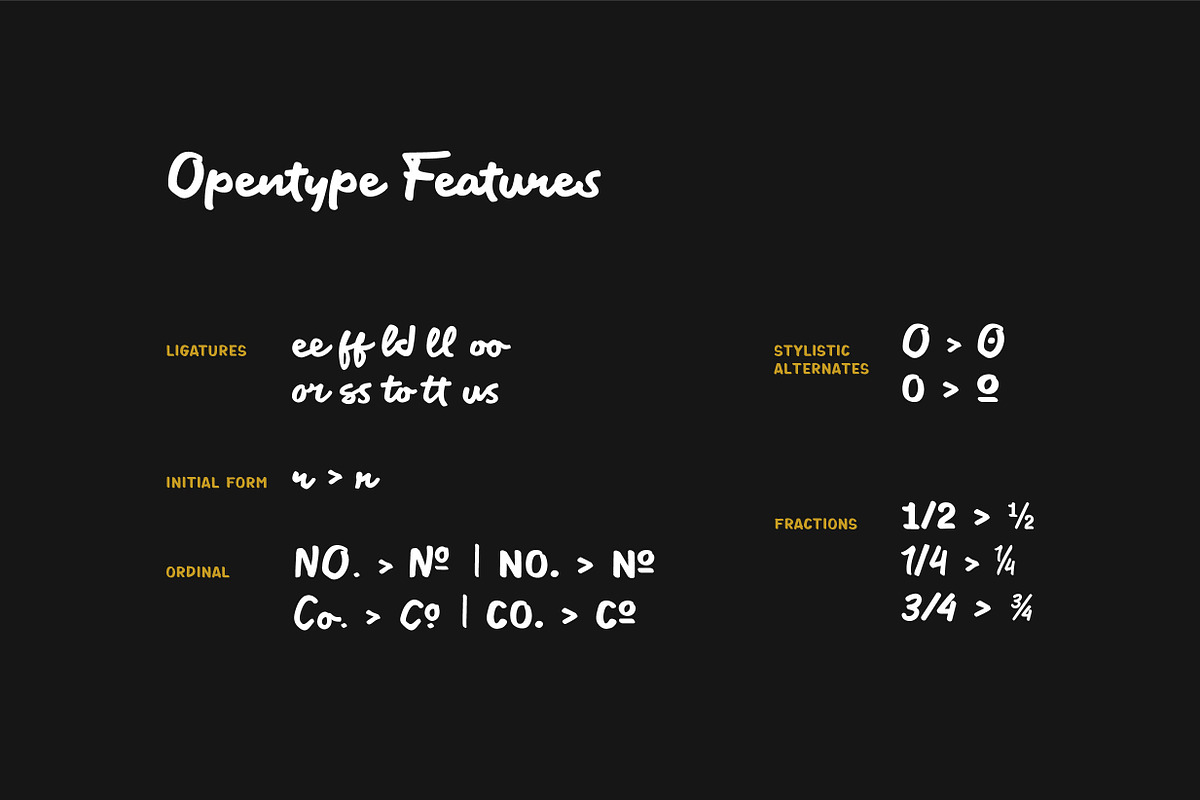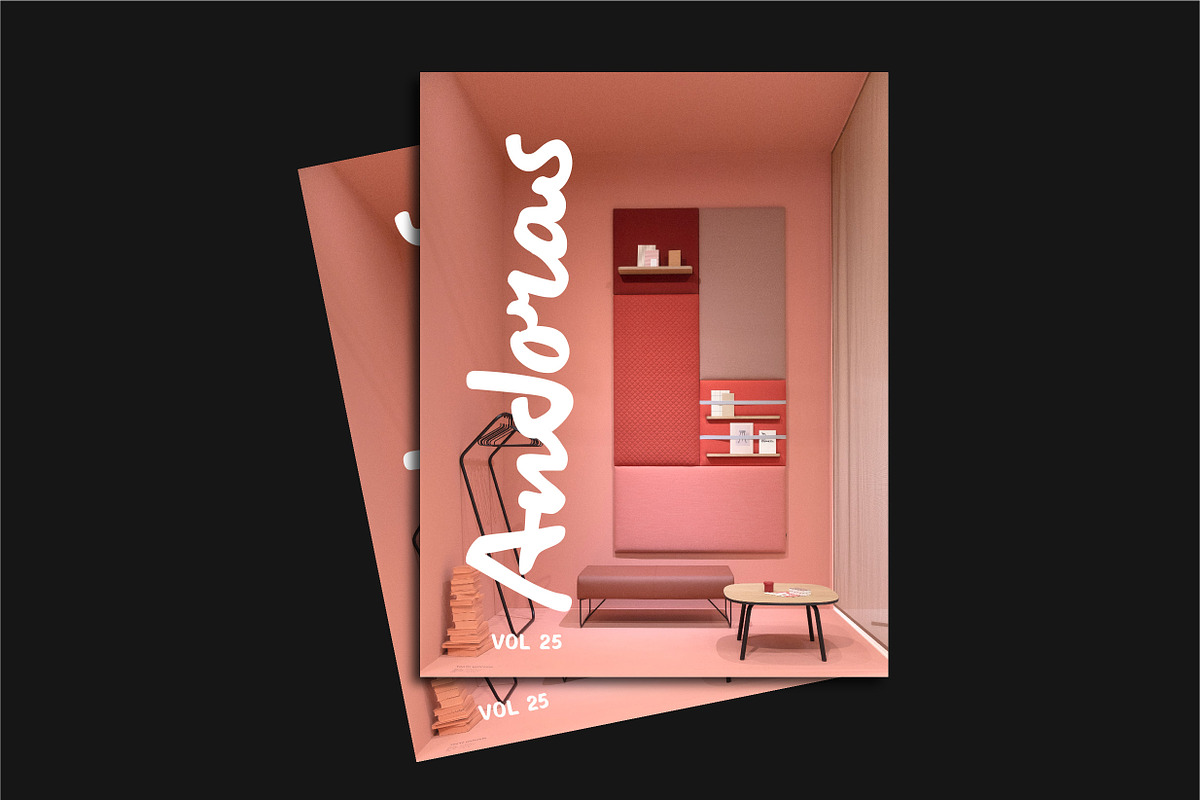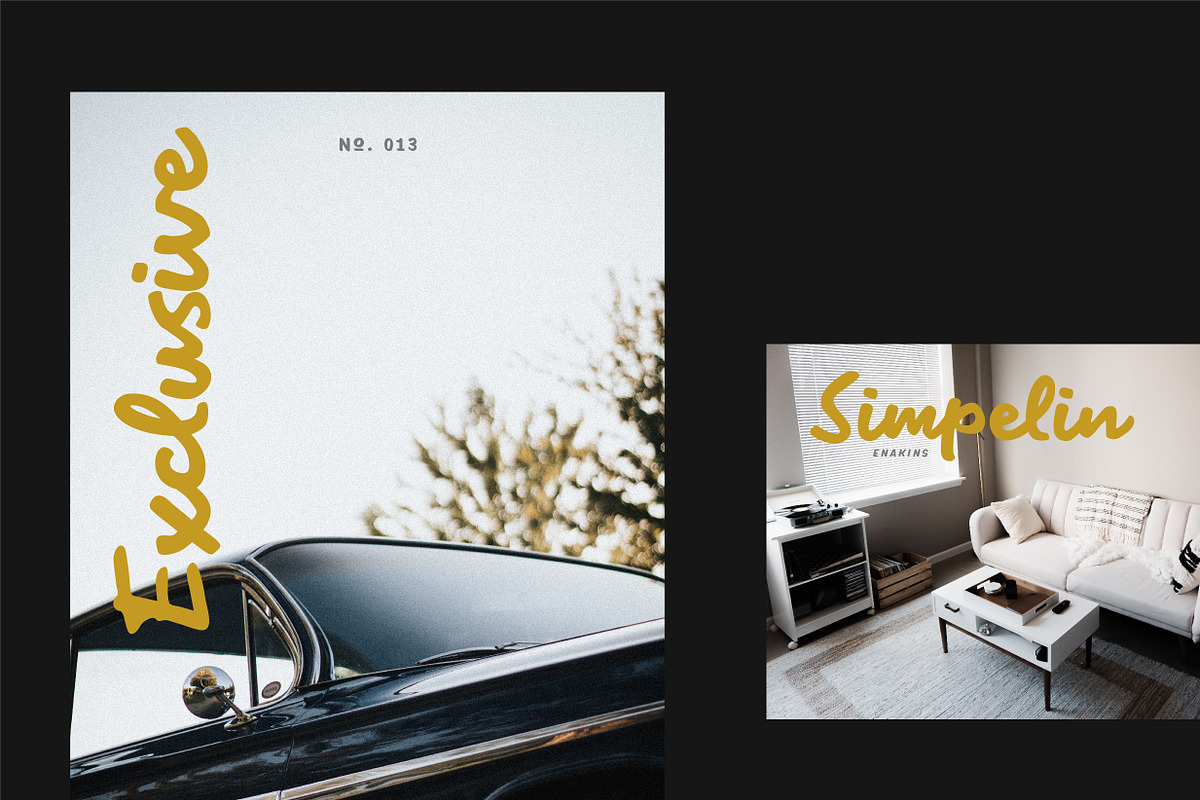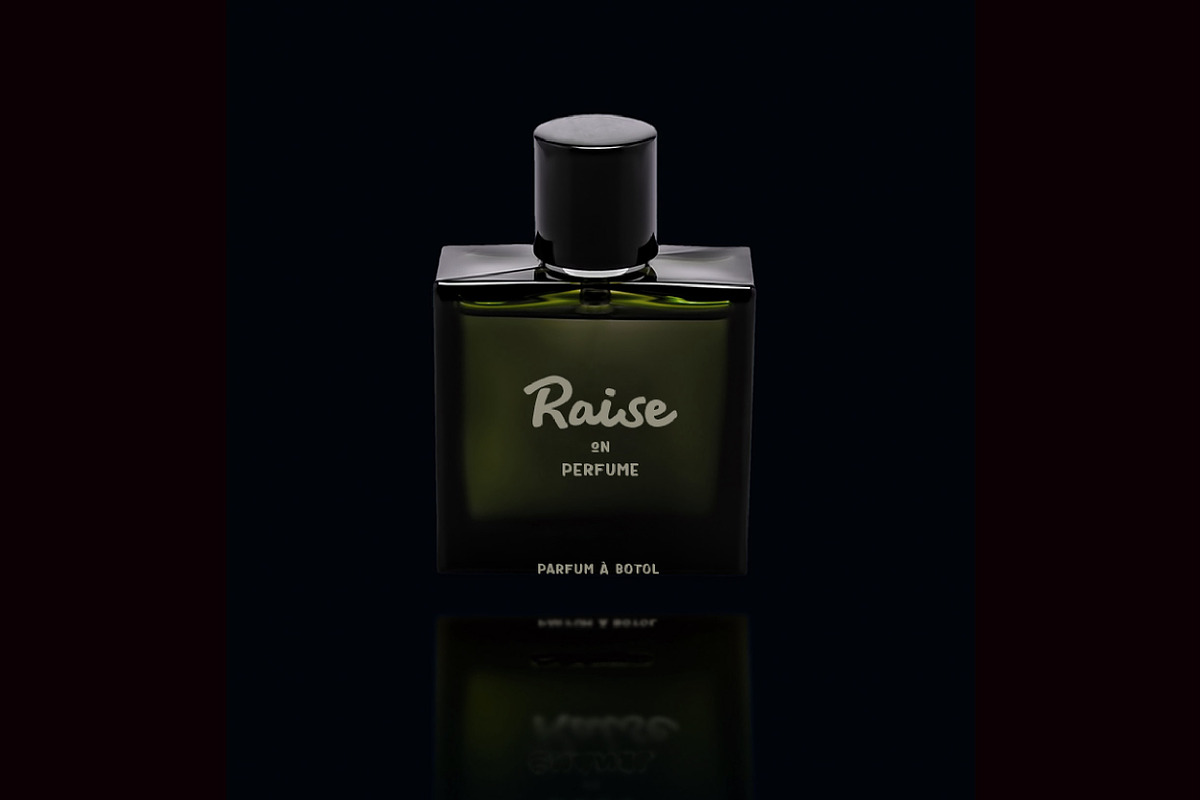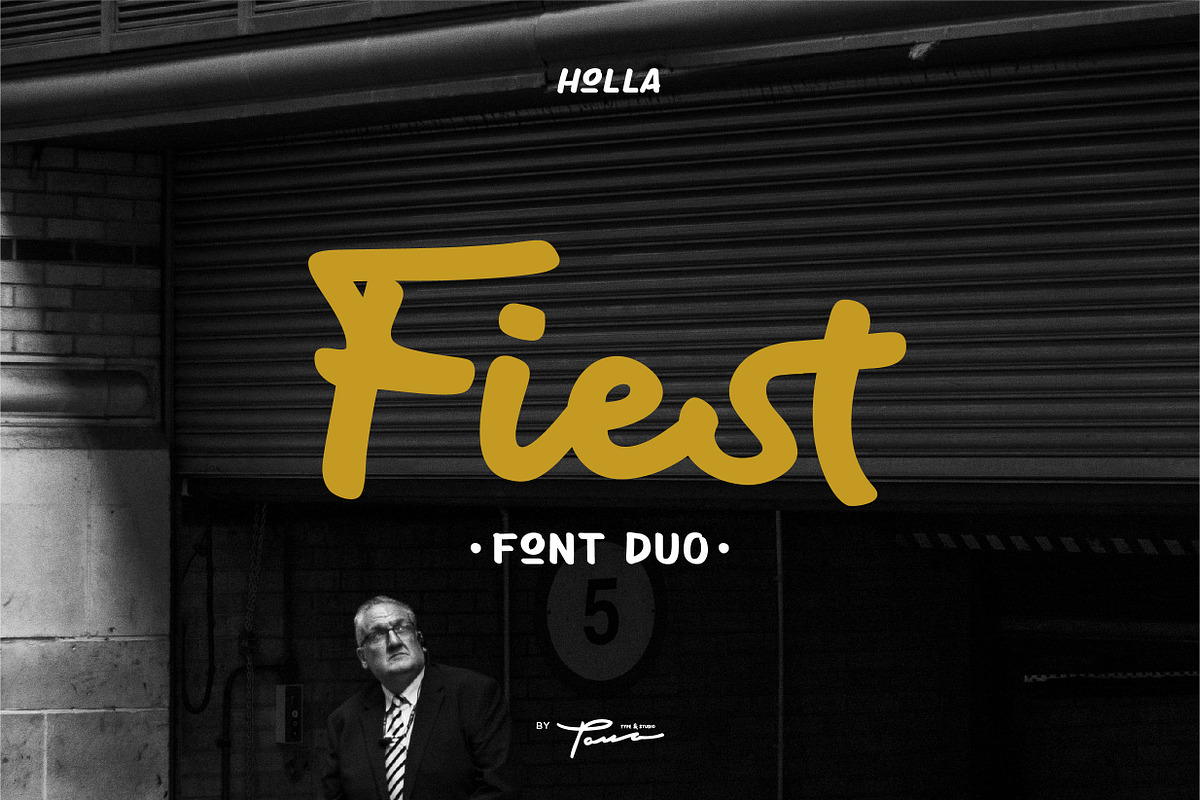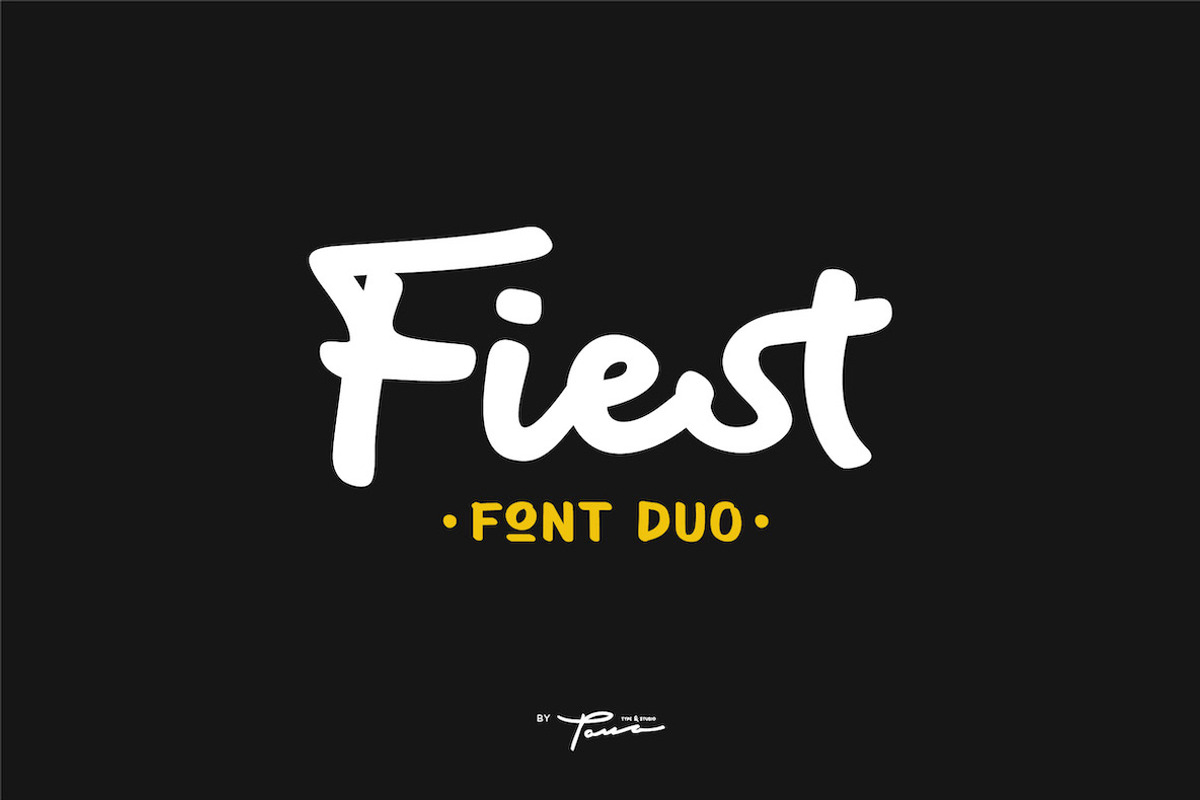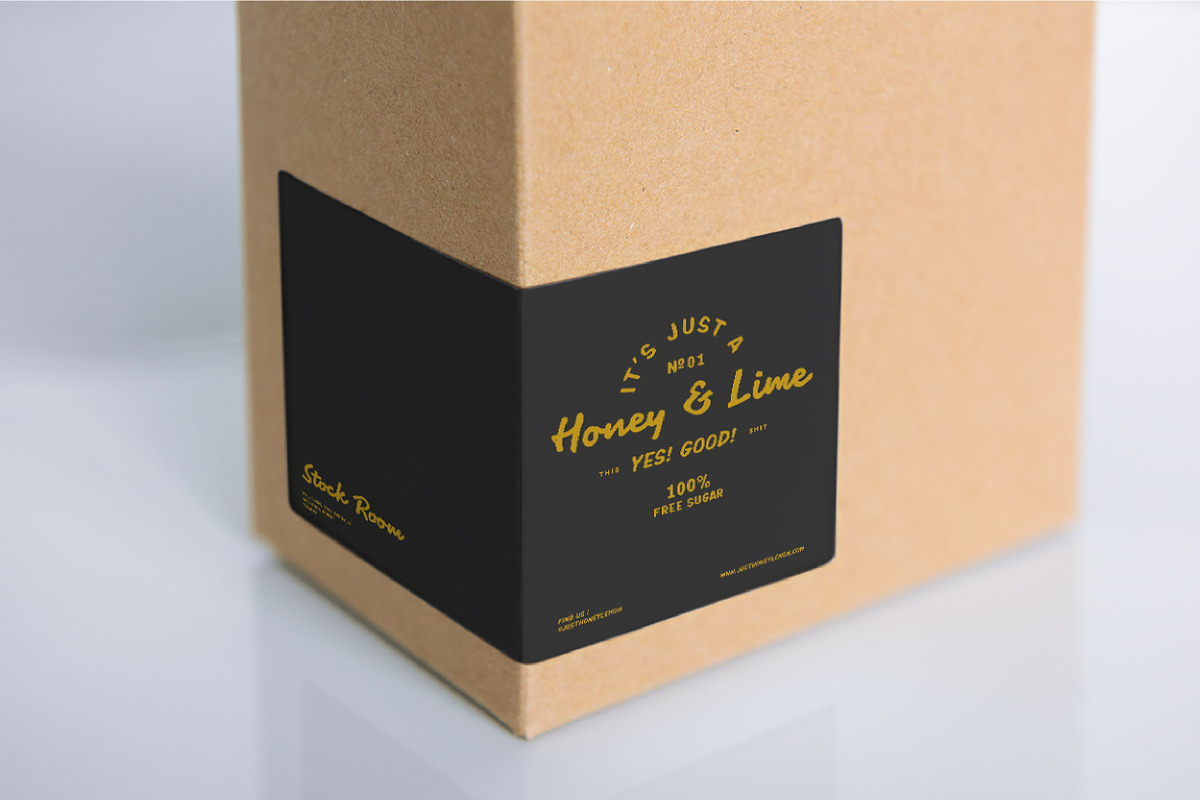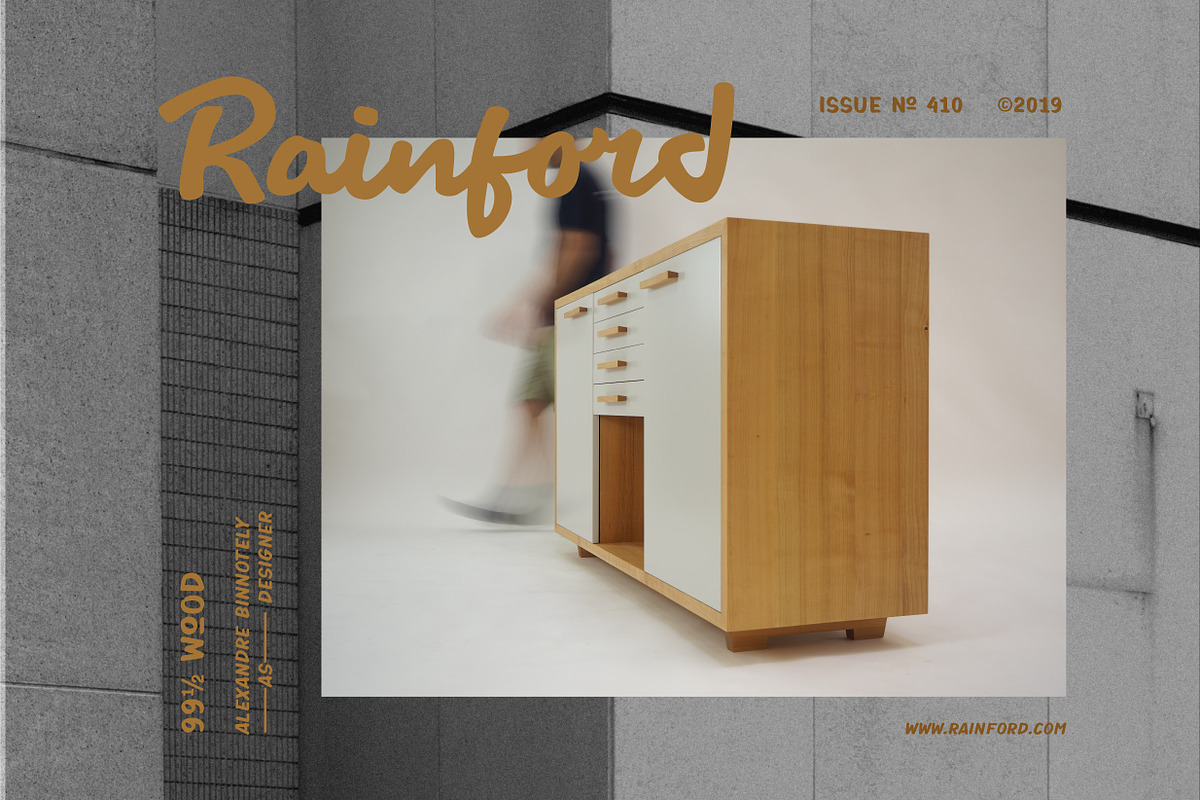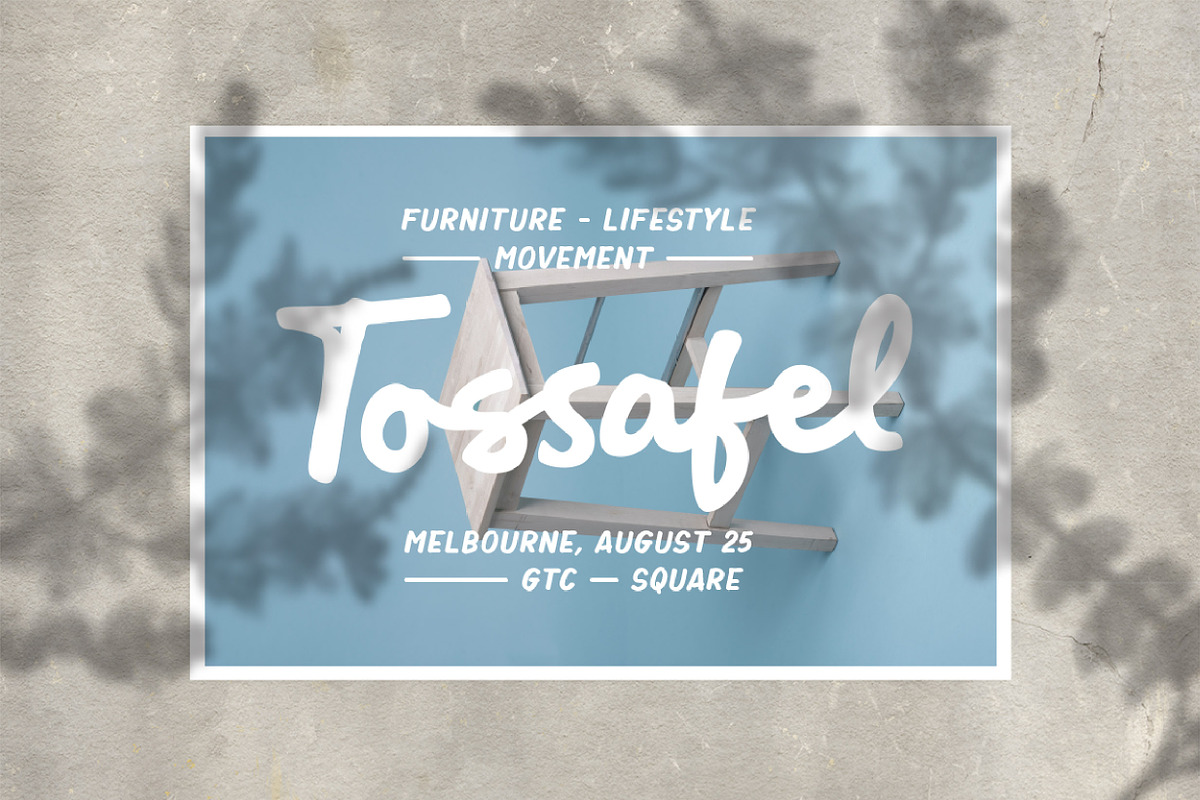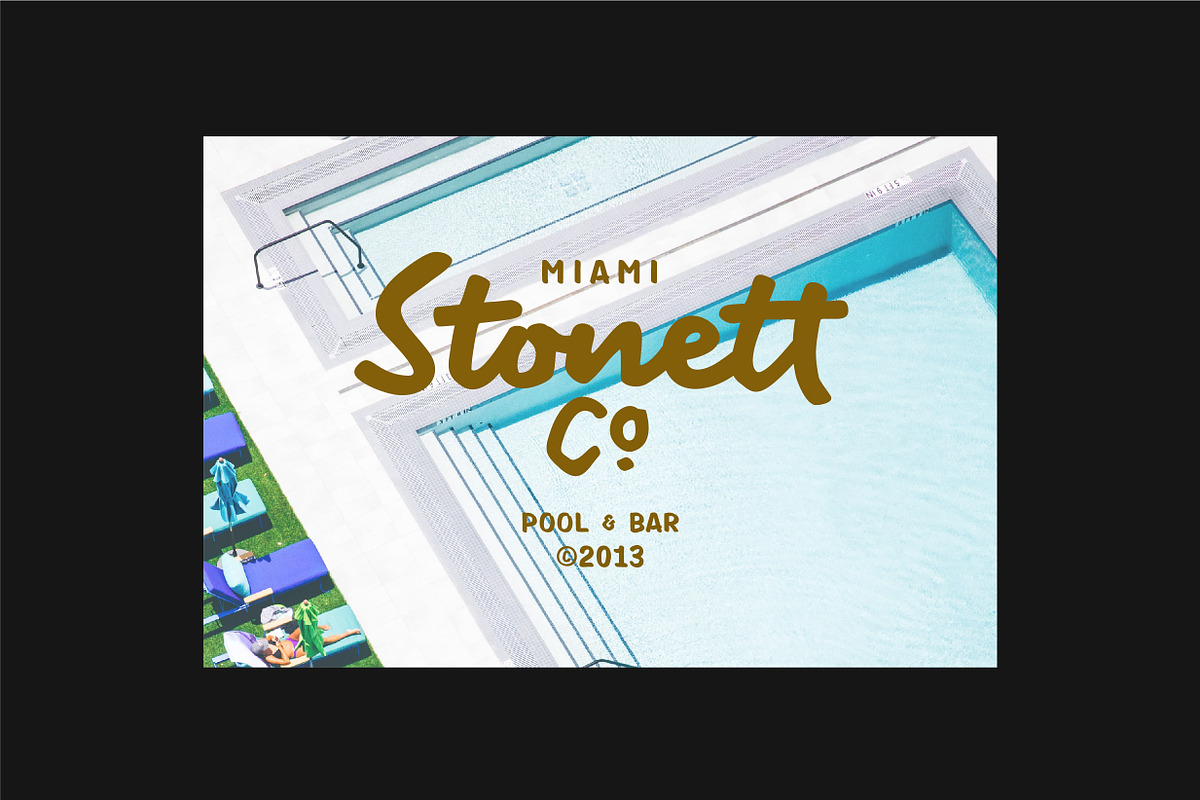
Fiest-Brush Font Duo
The Fiest Font Duo offers a charming blend of script and sans serif styles, crafting a unique handwriting experience suitable for various applications. Whether you're designing logos, wedding invitations, or brochures, this typeface adjusts seamlessly to offer a natural and engaging aesthetic.
Features Script and Sans Serif – Combines elegant script with clean sans serif. Matching Slanted Style – Adds versatility with an adaptable slant. OpenType Features – Enhances your design with ligatures, stylistic alternates, and more. Extended Latin Support – Ensures international usability.
This typeface invites creativity while maintaining professional quality, making it a reliable choice for any display use.